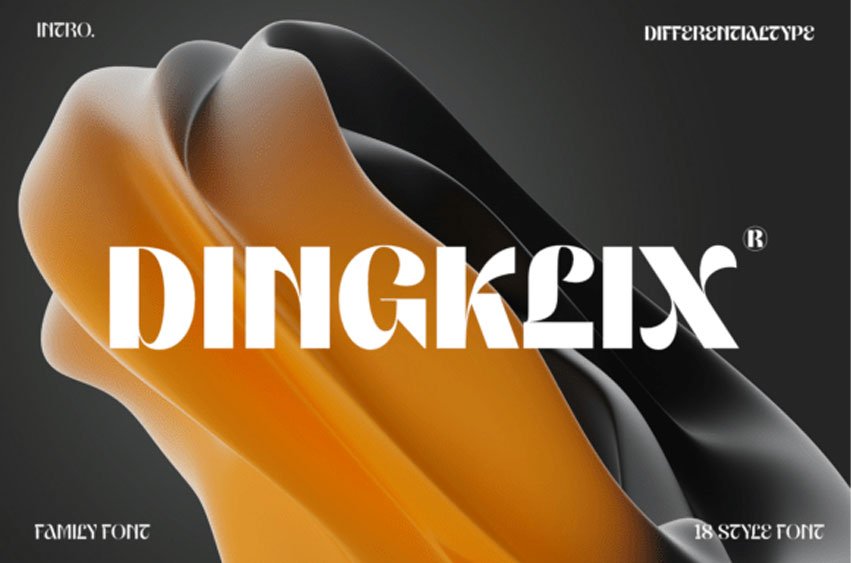
Dingklix Font Welcome to the world of Dingklix, a contemporary sans display font family that infuses every design with an aesthetic edge. The arresting disparity in weight makes Dingklix a symbol of sophistication, transforming headers, titles, and brand identities with unparalleled chicness. Ingeniously constructed with an unwavering commitment to precision, this dynamic font family boasts a spectrum of weights, spanning from delicate Thin to dramatic Black.
It’s a wellspring of creative potential, perfect for revamping logos, headlines, social media posts, or company branding. Choose Dingklix to make your designs not just memorable, but unforgettable.